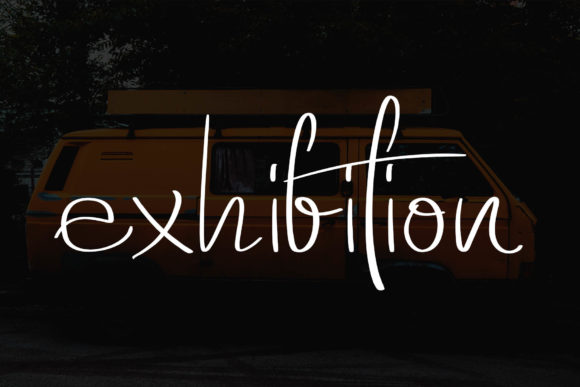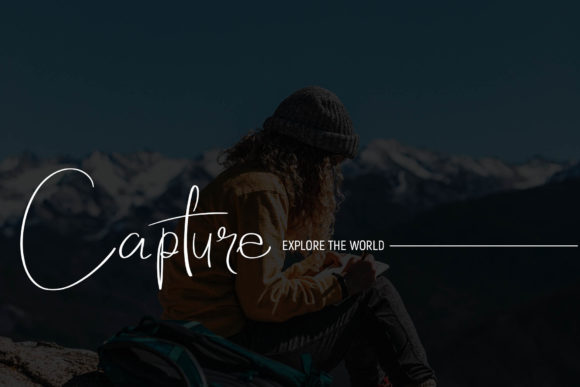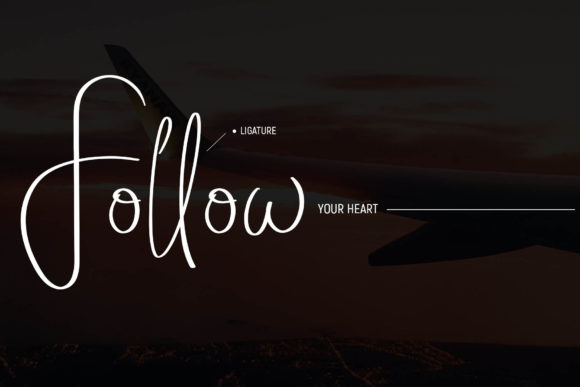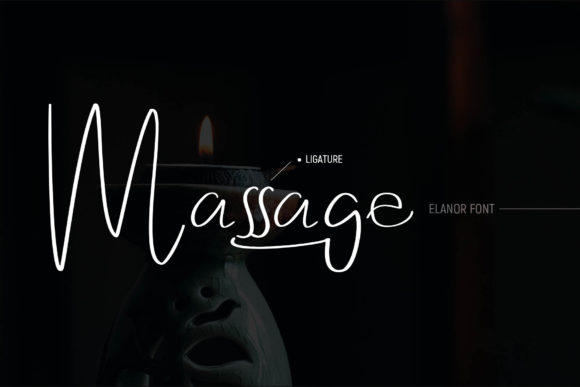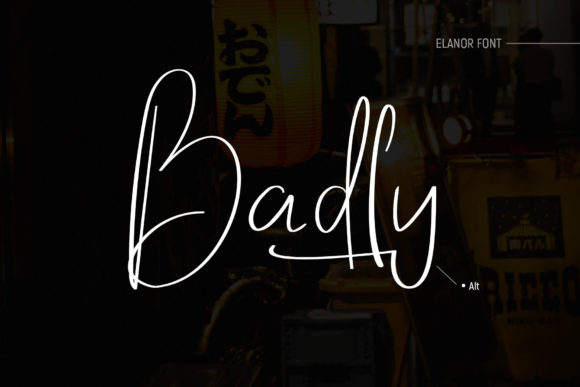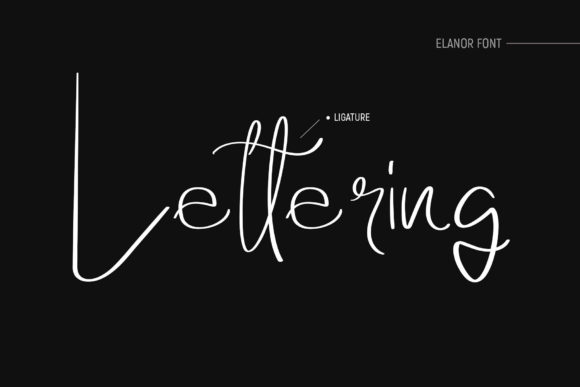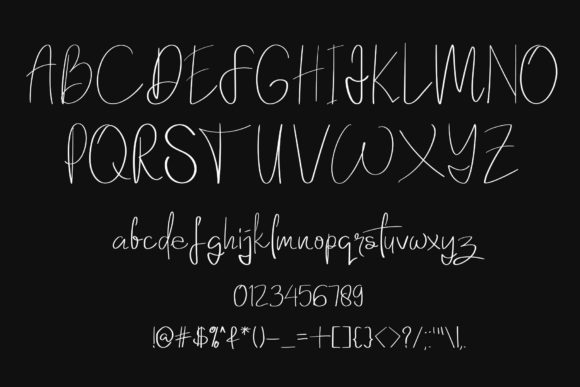
Elanor Font
About Elanor Font
The Elanor is an original handwritten font. It’s perfect for lettering designs, banners, retro posters, or just to give an authentic touch to your designs!